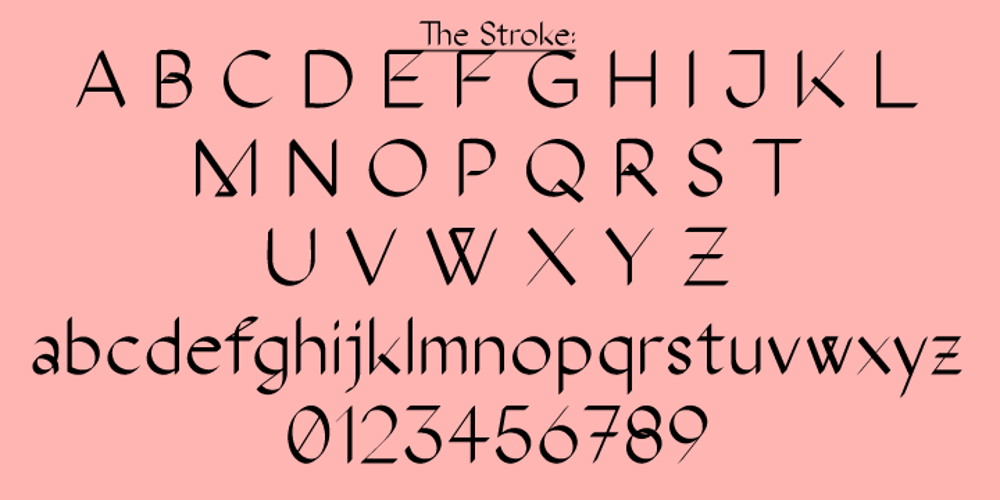
The Stroke Sans Font Family was designed by Abstrkt Design Team and published by ABSTRKT. The Stroke Sans contains 4 styles and family package options. The Stroke typeface is based on a broad nib pen theory taken to its extreme, using idealization of computer-generated pen stroke.